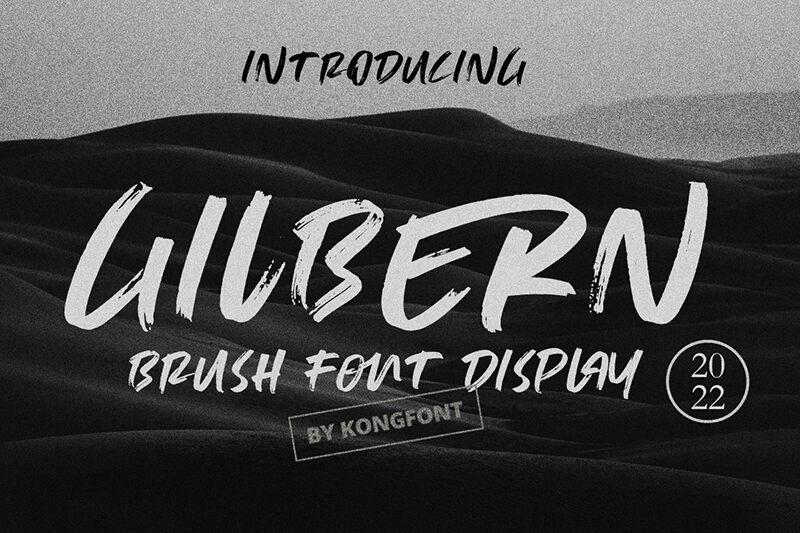
Gilbern font by Kong Font is a free brush font that introduces artful charisma to your designs. With a gritty texture and energetic feel, this font captures an informal yet modern aesthetic.
Its expressive style combines a dynamic presence with contemporary appeal, allowing you to convey a message that resonates with creativity and uniqueness. Its versatility makes it great for branding projects, product packaging, clothing designs, labels, and photography.
It also works well for special invitations, watermarking, TV series titles, magazine headers, posters, and other commercial projects. The font is licensed for personal use only. For commercial usage and personalized rights, feel free to purchase a license.